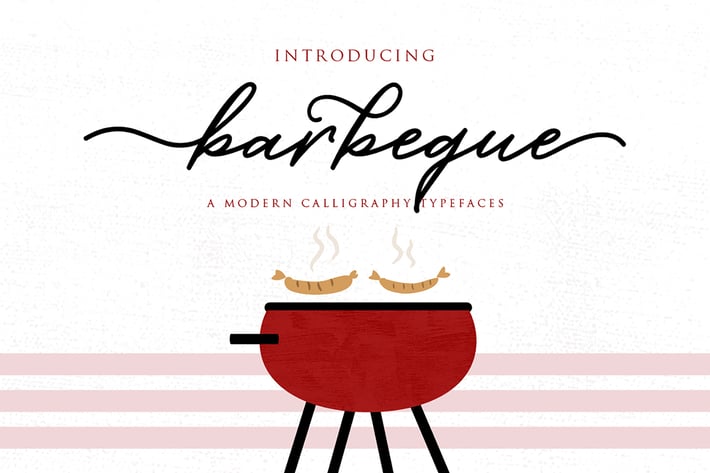
Barbeque Fonts
Barbeque Fonts is a handrawn calligraphy typeface that features a varying baseline, modern and elegant touch. Can be used for various purposes, such as headings, signature, logos, wedding invitation, t-shirt, letterhead, signage, lable, news, posters, badges etc. Most importantly, this font is very functional.
Barbeque Fonts features 306 glyphs + alternates. Multiple language support. Also, you can email us if need more language support.